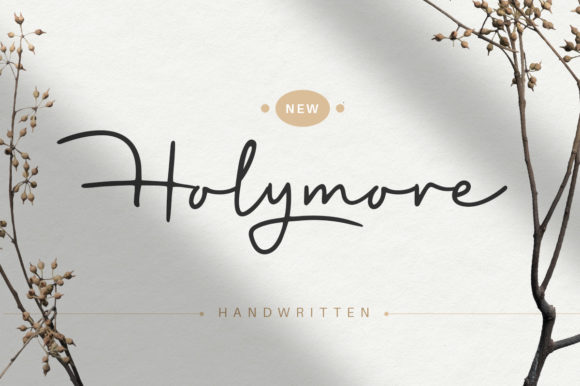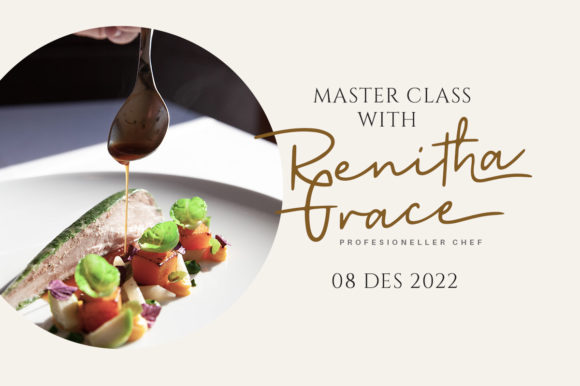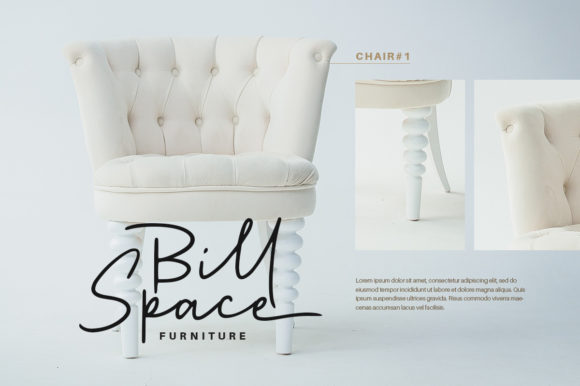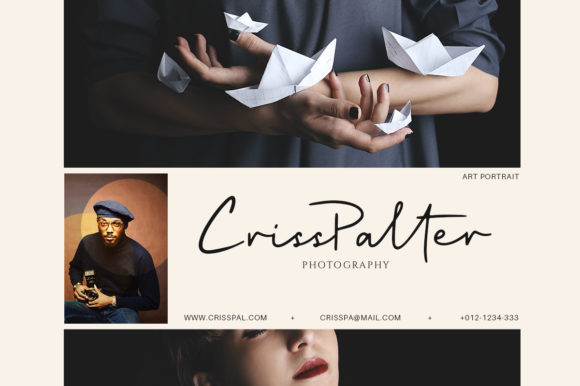
Holymore Font: Elegant Handwritten Script for Logo Design & Branding
About the Holymore Font
Unleash your creativity with Holymore Font, a versatile font perfect for a wide range of applications. Holymore is a modern and delicate handwritten font. Warm, romantic and jolly, this font will turn each of your project ideas into real works of art. Have fun with this beautiful font and explore its endless variations.
Holymore’s delicate nature makes it ideal for projects requiring a touch of elegance and warmth, such as wedding invitations, branding for artisanal products, or short, impactful headlines. Its charm shines in smaller applications where its handcrafted feel adds personality. However, its low x-height and inconsistent stroke weights make it unsuitable for large bodies of text or UI elements where legibility is paramount.
Consider pairing Holymore with a clean sans-serif like Lato or Open Sans for a balanced contrast; the geometric structure of these fonts will ground the handwritten feel of Holymore. For a more playful look, a rounded sans-serif such as Gill Sans could also work well.
Holymore’s overall personality is best described as romantic and friendly, yet sophisticated. Its charm lies in its imperfect strokes, lending a sense of handcrafted authenticity.
Holymore Font Usage Examples
Holymore Font Example